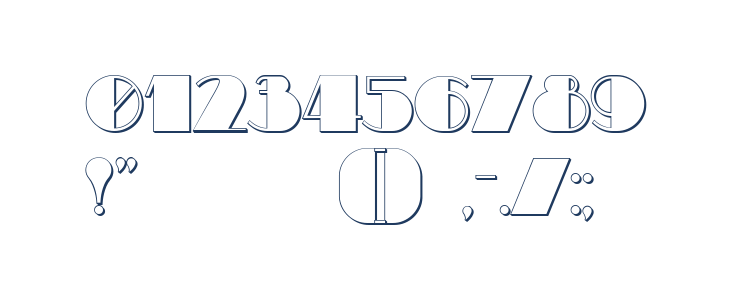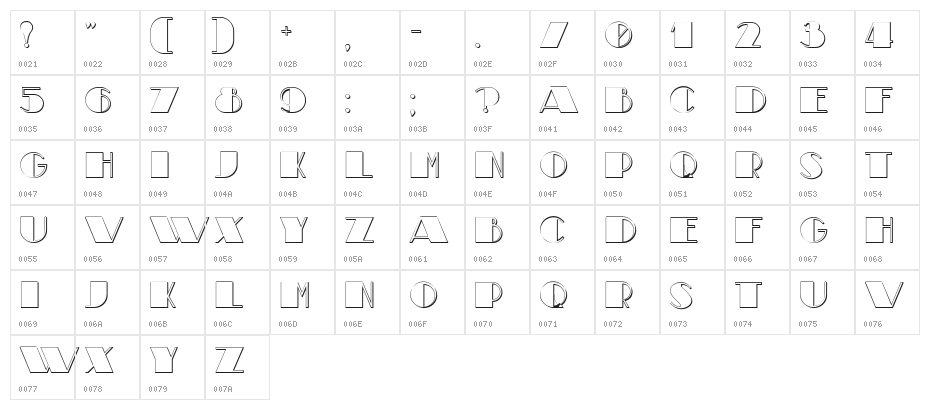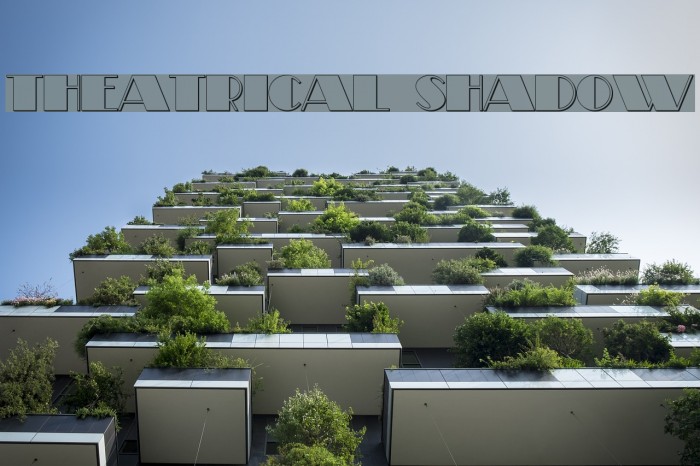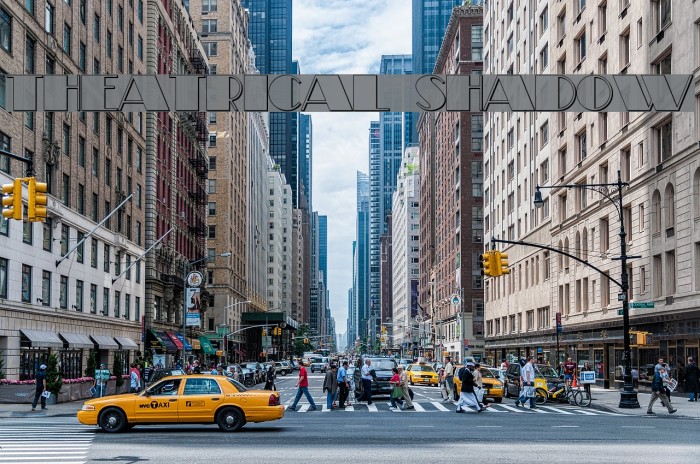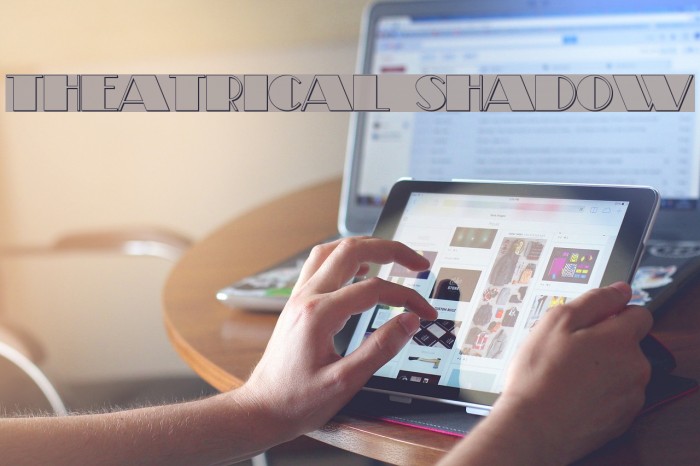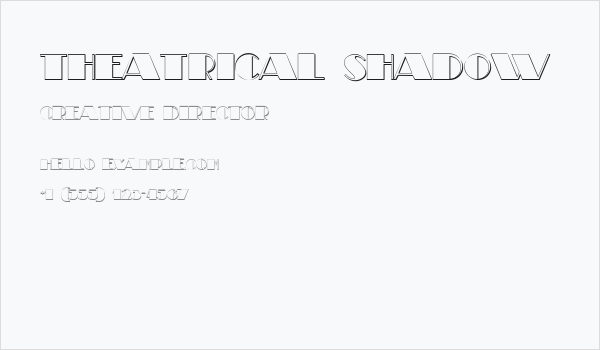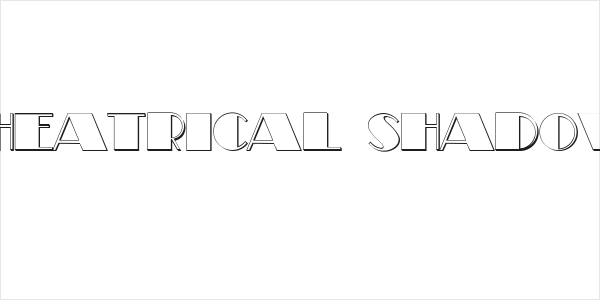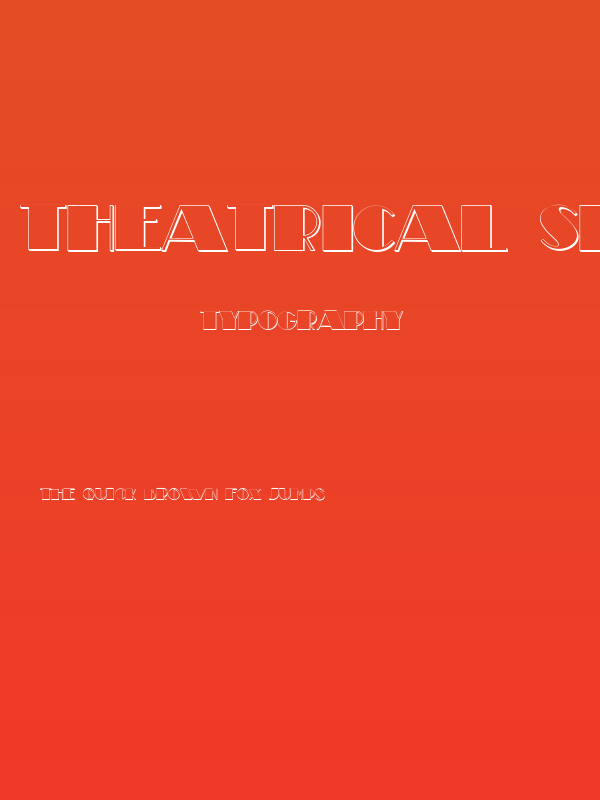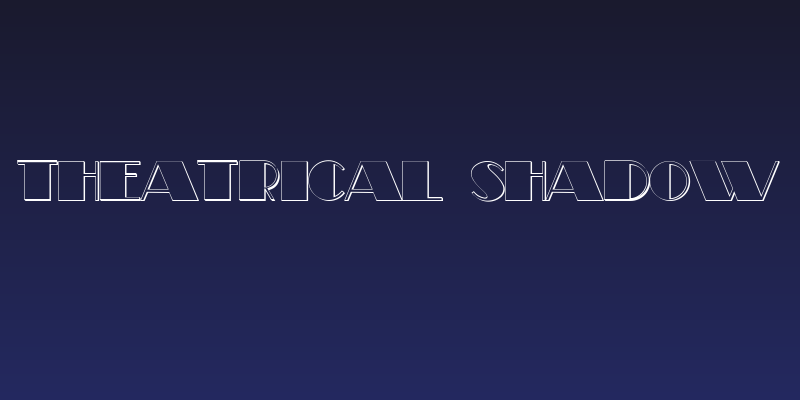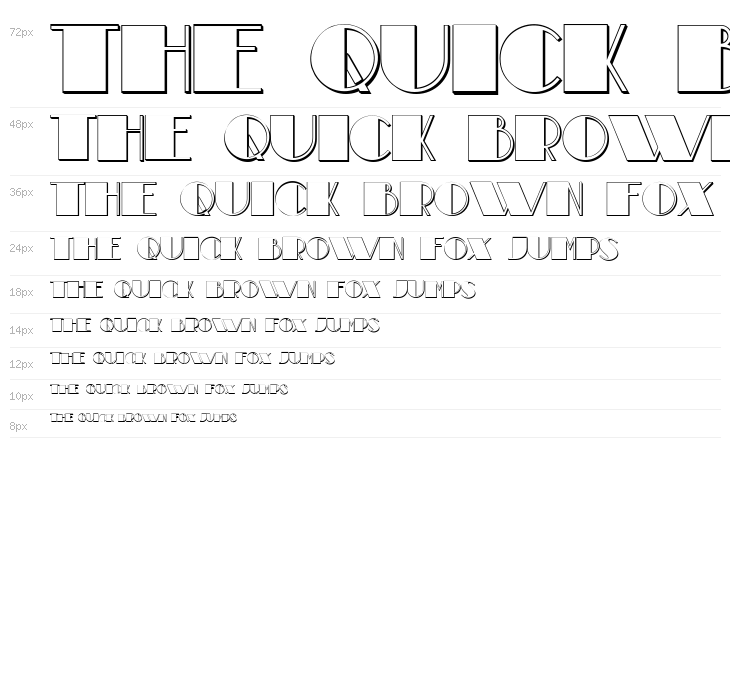
Theatrical Shadow Font
Theatrical Shadow Description
This font features a unique blend of geometric shapes and bold lines, creating a striking visual impact. The characters are designed with a shadow effect that gives a three-dimensional appearance, enhancing its theatrical and dramatic style. The uppercase letters are particularly bold, with sharp angles and clean lines, while the lowercase letters maintain a consistent style, ensuring readability. Numbers and special characters follow the same design principles, making the font versatile for various uses. The overall design is modern and eye-catching, perfect for making a statement.
| Proposed Projects | Ideal for theatrical posters, modern branding, eye-catching headlines, and creative graphic design projects. |